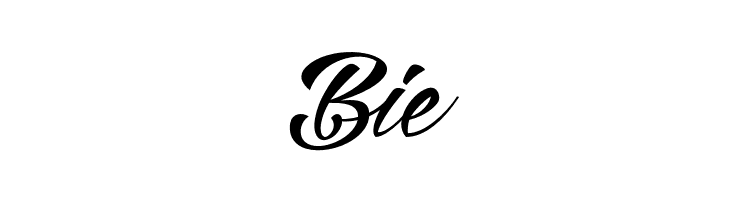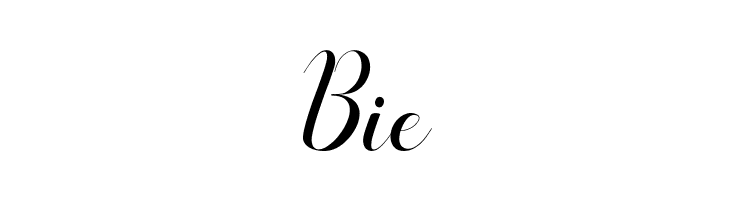
An elegant and flowing script font with ornate curves and flourishes.
An elegant script font with flowing, cursive letters and ornate uppercase characters.
An elegant script font with flowing, cursive letterforms and decorative flourishes.
An elegant script font with flowing, interconnected letters and dynamic stroke contrast.
A classic, elegant script font with intricate, flowing strokes and ornamental details.
An elegant serif italic font with moderate contrast and refined details.
An elegant italic font with smooth curves and moderate contrast.
An elegant script font with flowing, interconnected cursive letterforms.
A classic calligraphic font with elegant, flowing strokes and sophisticated flair.